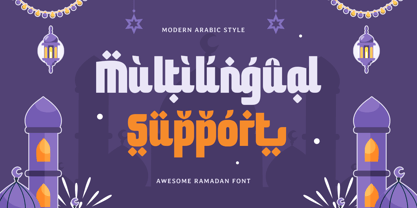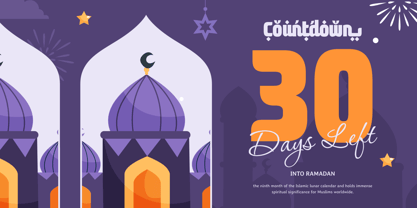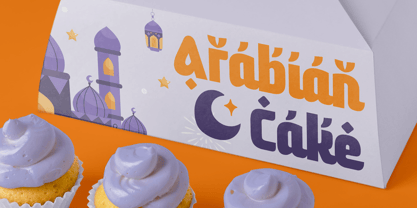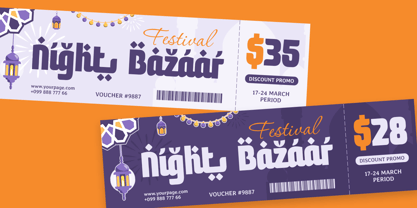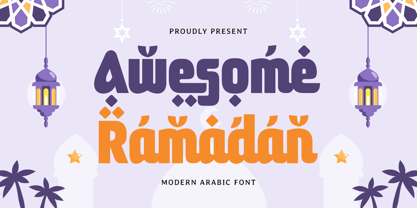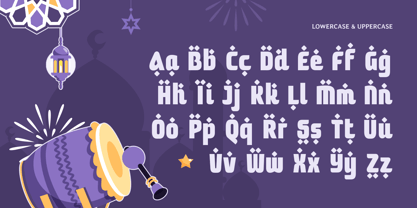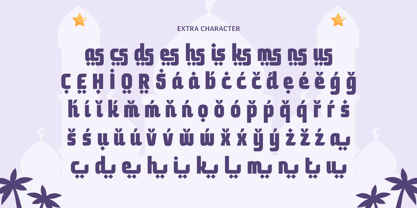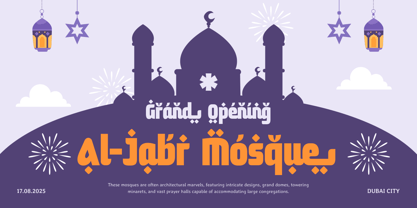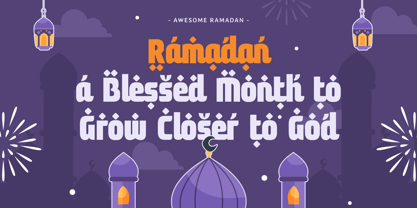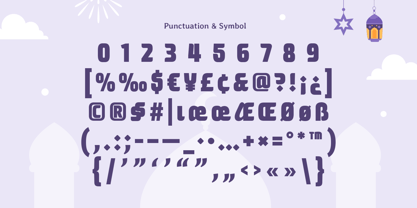
Awesome Ramadan
The Awesome Ramadan Font Family was designed by Zamroni Hamzah and published by Sensatype Studio. Awesome Ramadan contains 1 styles. More about this family
Awesome Ramadan - Modern Arabic Font
Awesome Ramadan is a contemporary Arabic font designed to highlight the elegance and spirituality of Ramadan. With its clean and bold design, this font is perfect for greeting cards, branding, event invitations, Islamic artwork, and festive packaging. It beautifully balances modern aesthetics with traditional Arabic script, creating a unique visual appeal for your projects.
Inspired by the festive essence of Ramadan, Awesome Ramadan delivers a design that resonates with cultural depth and modern simplicity. Whether used for digital media, banners, or corporate branding, this font ensures your message stands out with clarity and sophistication.
Celebrate the season with Awesome Ramadan, a font crafted to enhance your designs with an authentic and contemporary touch. Its versatility makes it an essential tool for creating designs that combine tradition and modernity seamlessly.
Awesome Ramadan Modern Arabic Font Features:
• Modern Arabic Calligraphy Design
• Punctuation, Numbers, and Symbols
• Uppercase and Lowercase
• Opentype Features
Multilingual Characters available for:
Afrikaans, Albanian, Asu, Basque, Bemba, Bena, Breton, Chiga, Cornish, Dutch, English, Estonian, Filipino, Finnish, Friulian, Galician, German, Gusii, Indonesian, Irish, Italian, Kabuverdianu, Kalenjin, Kinyarwanda, Luo, Luxembourgish, Luyia, Machame, Makhuwa-Meetto, Makonde, Malagasy, Manx, Morisyen, North Ndebele, Nyankole, Oromo, Portuguese, Quechua, Romansh, Rombo, Rundi, Rwa, Samburu, Sango, Sangu, Scottish Gaelic, Sena, Shambala, Shona, Soga, Somali, Spanish, Swahili, Swedish, Swiss.
Designers: Zamroni Hamzah
Foundry: Sensatype Studio